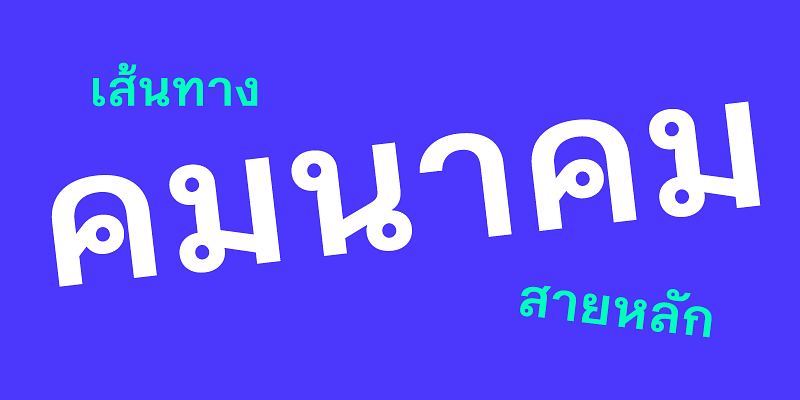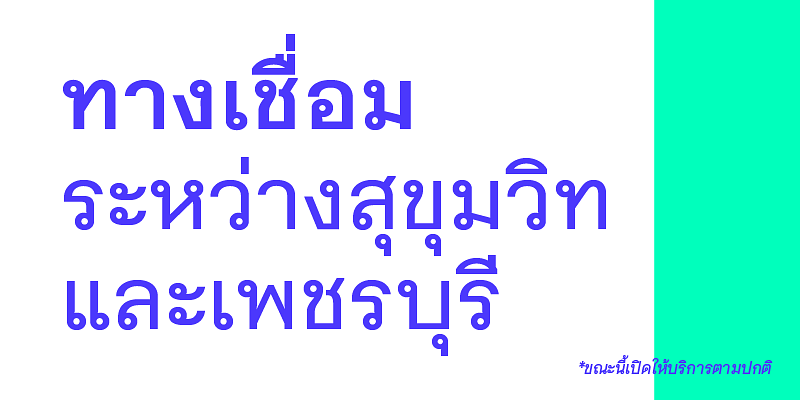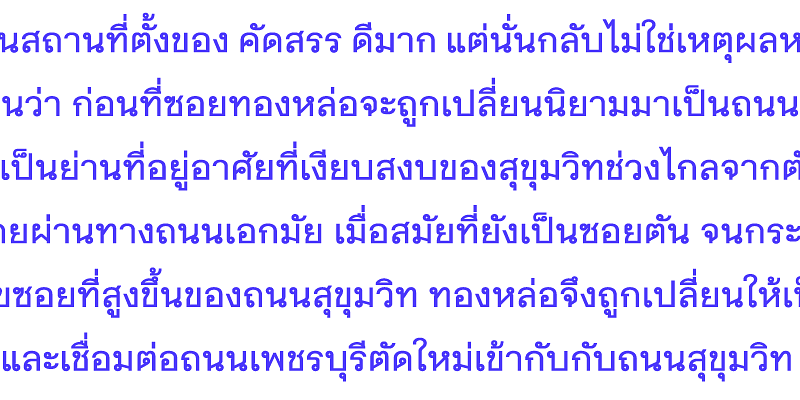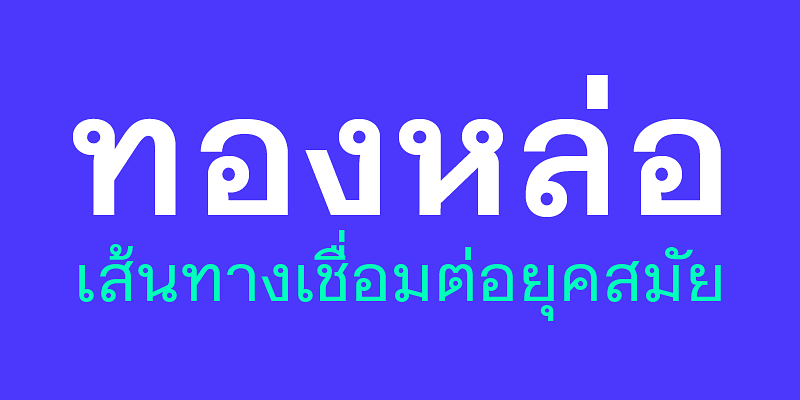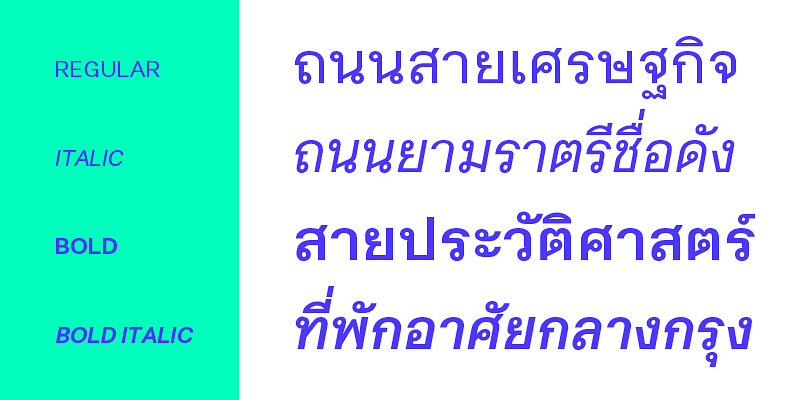
A modern looped Sans Serif Family that is seen on various medias, ranging from print to screen. It is designed with a modular system, and has a bigger loop than usual to accommodate weight expansions.